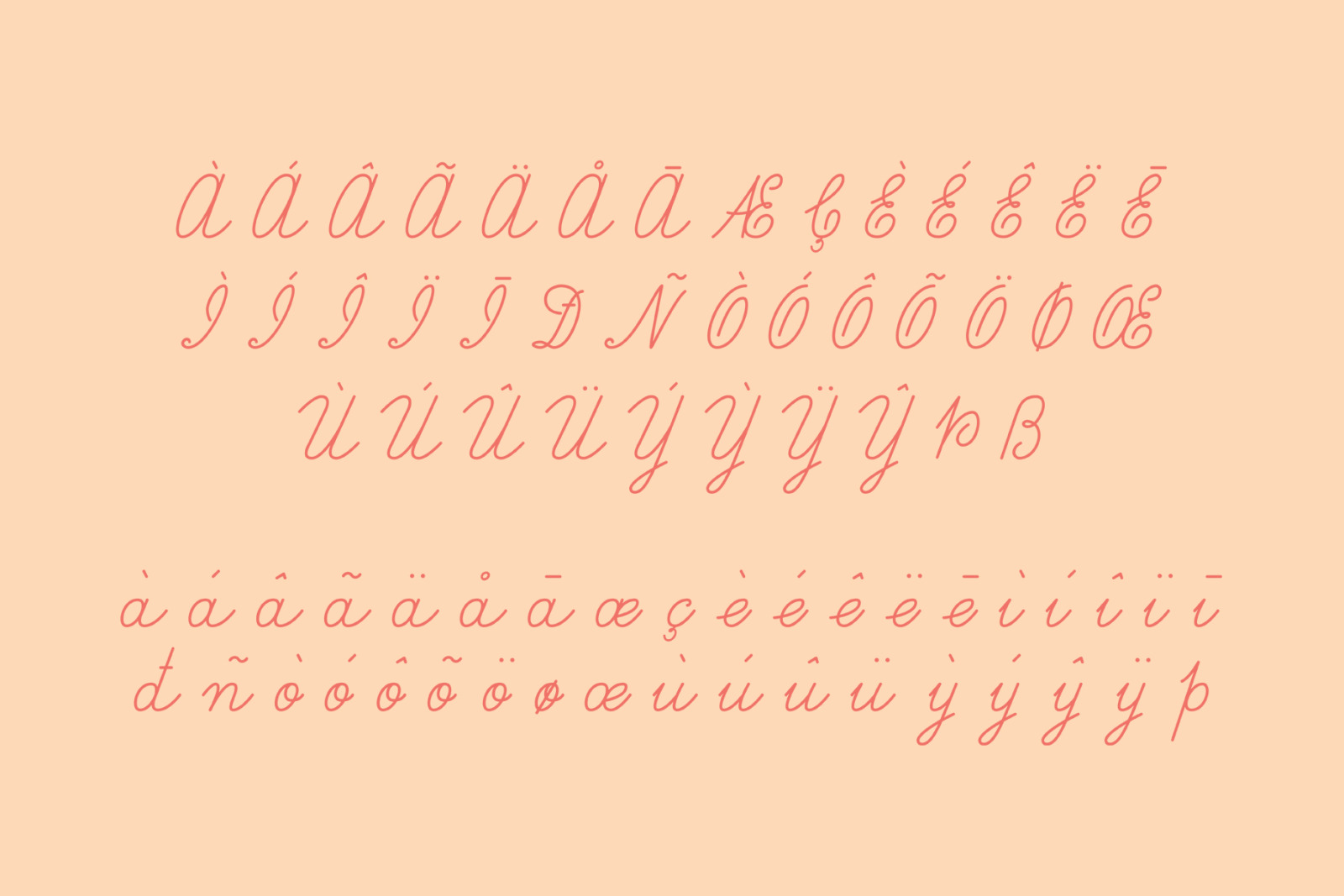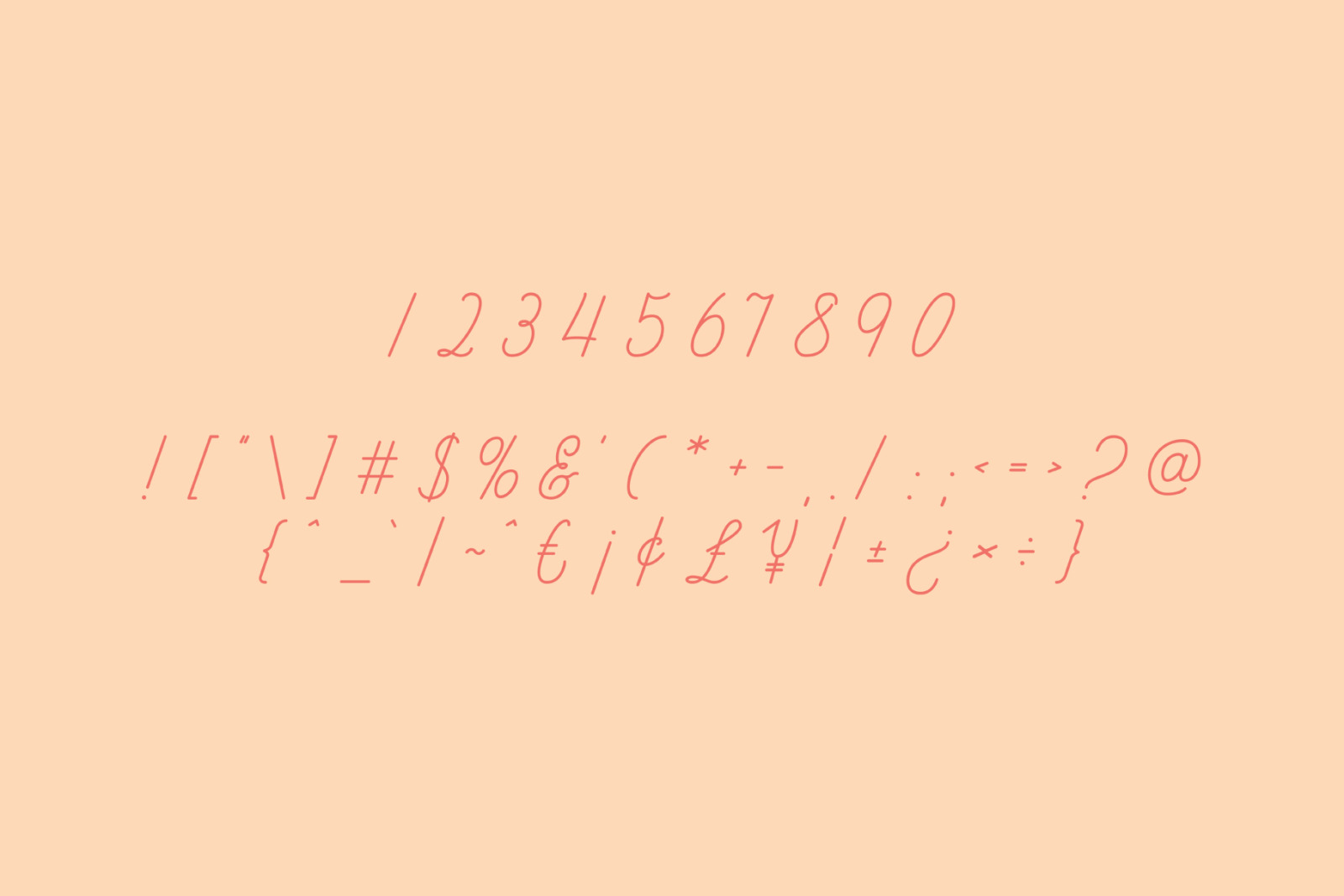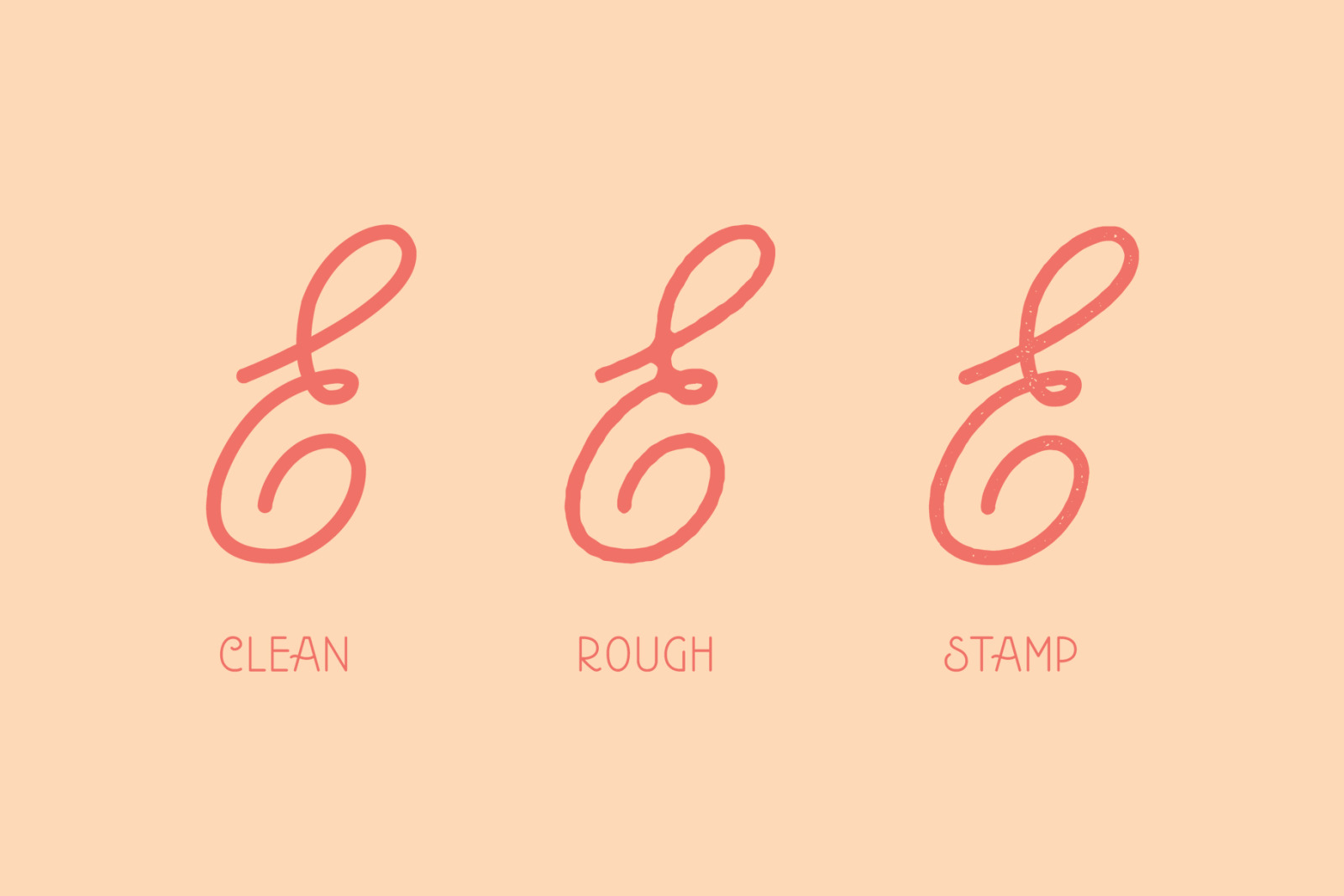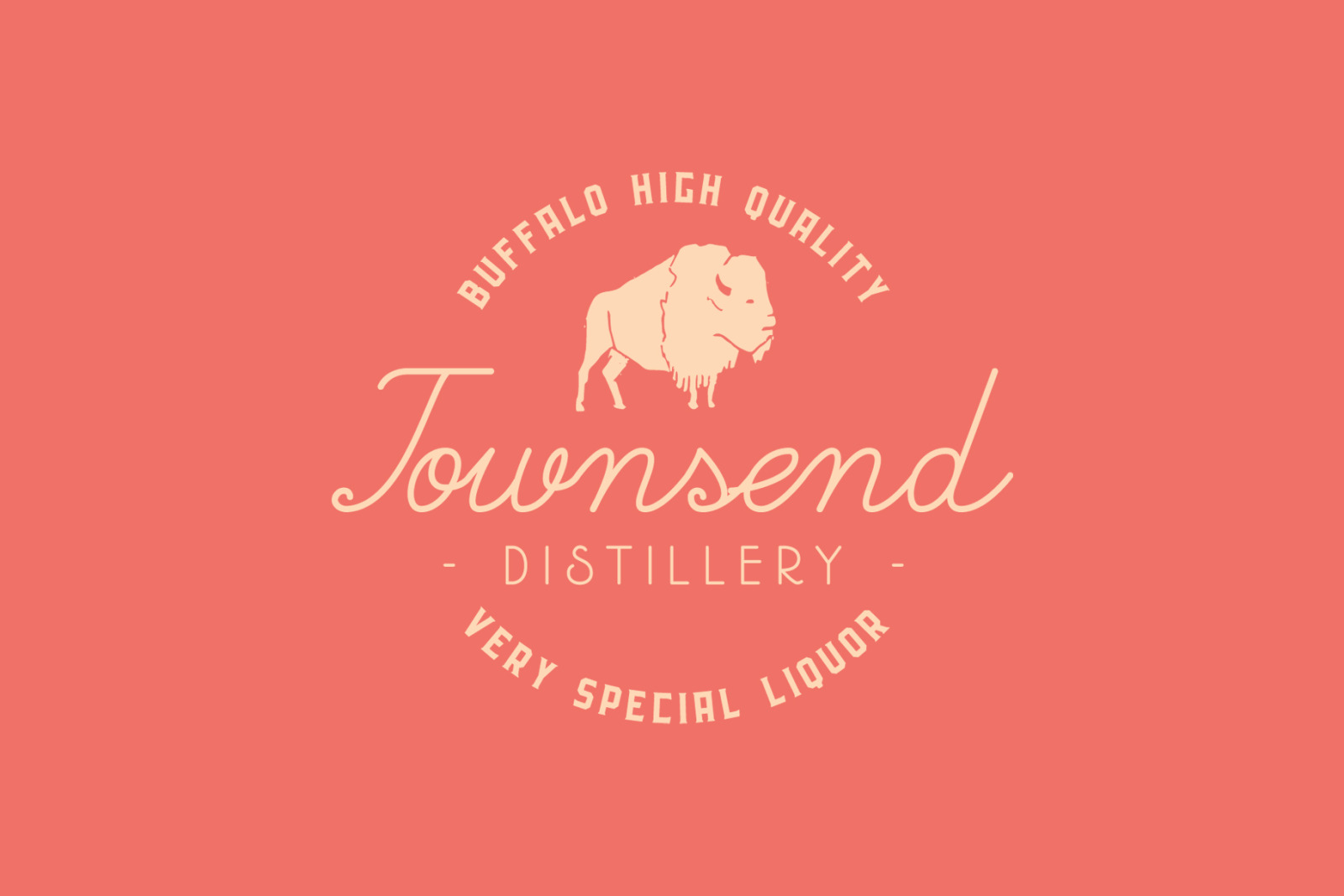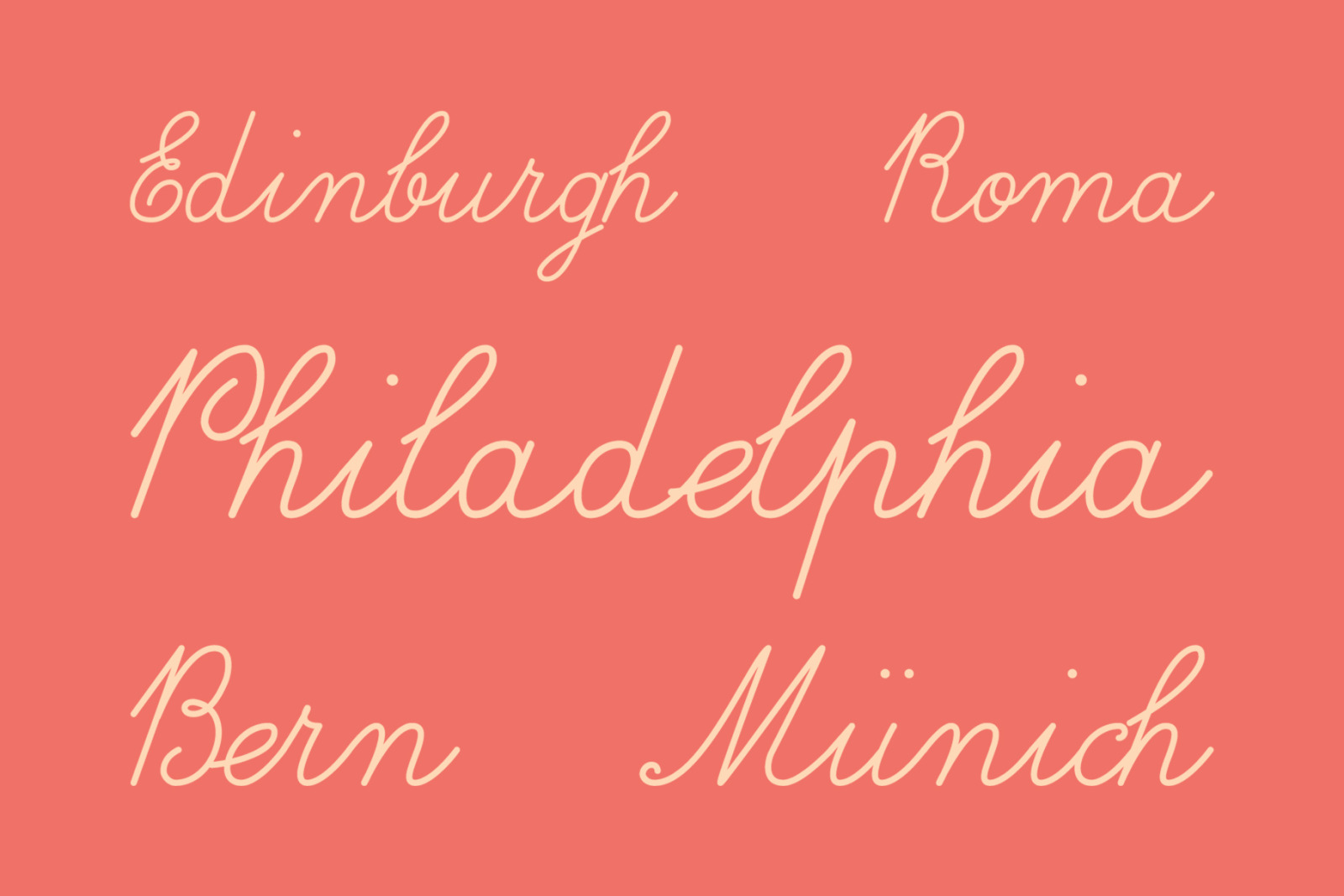
Fribois - Monoline Script Font
Fribois is a monoline script font based on old school penmanship styles. Carefully hand-crafted with pen and then digitally recreated. Is great for text, headers, logos, brandings and more.
Fribois Script comes with 3 styles:
- clean
- rough
- stamp